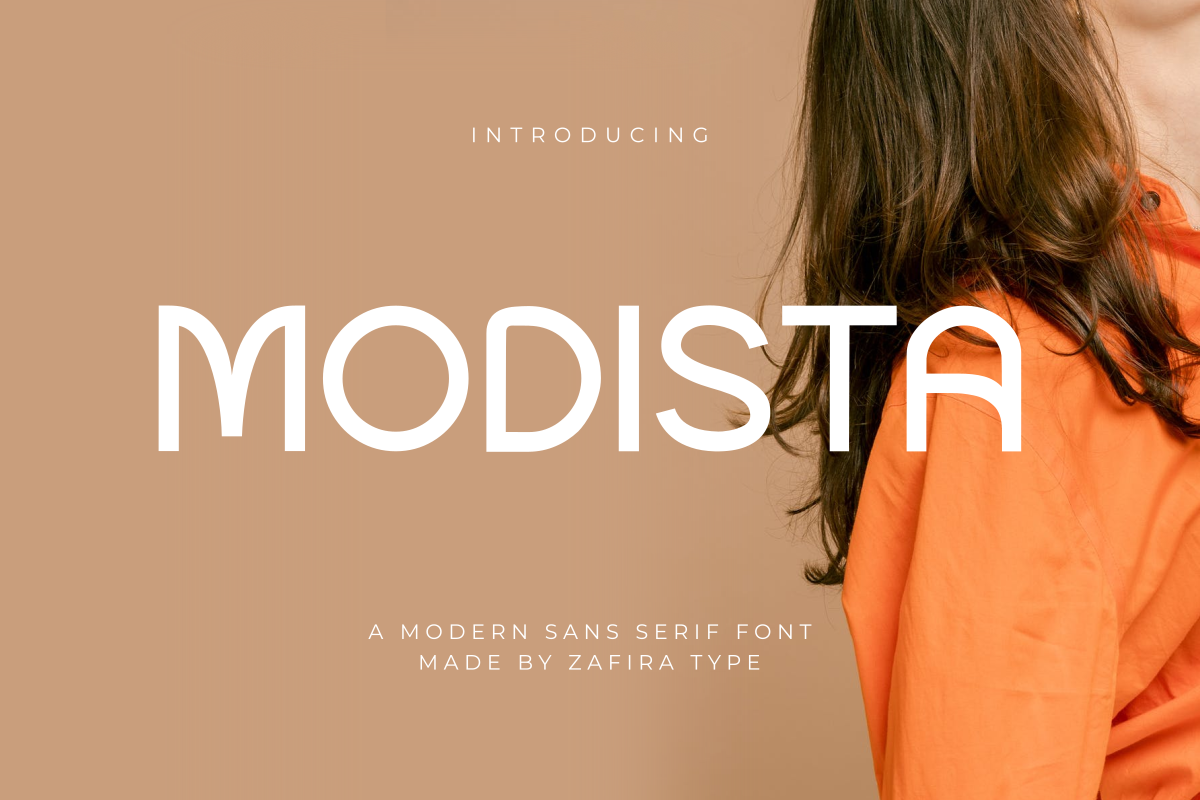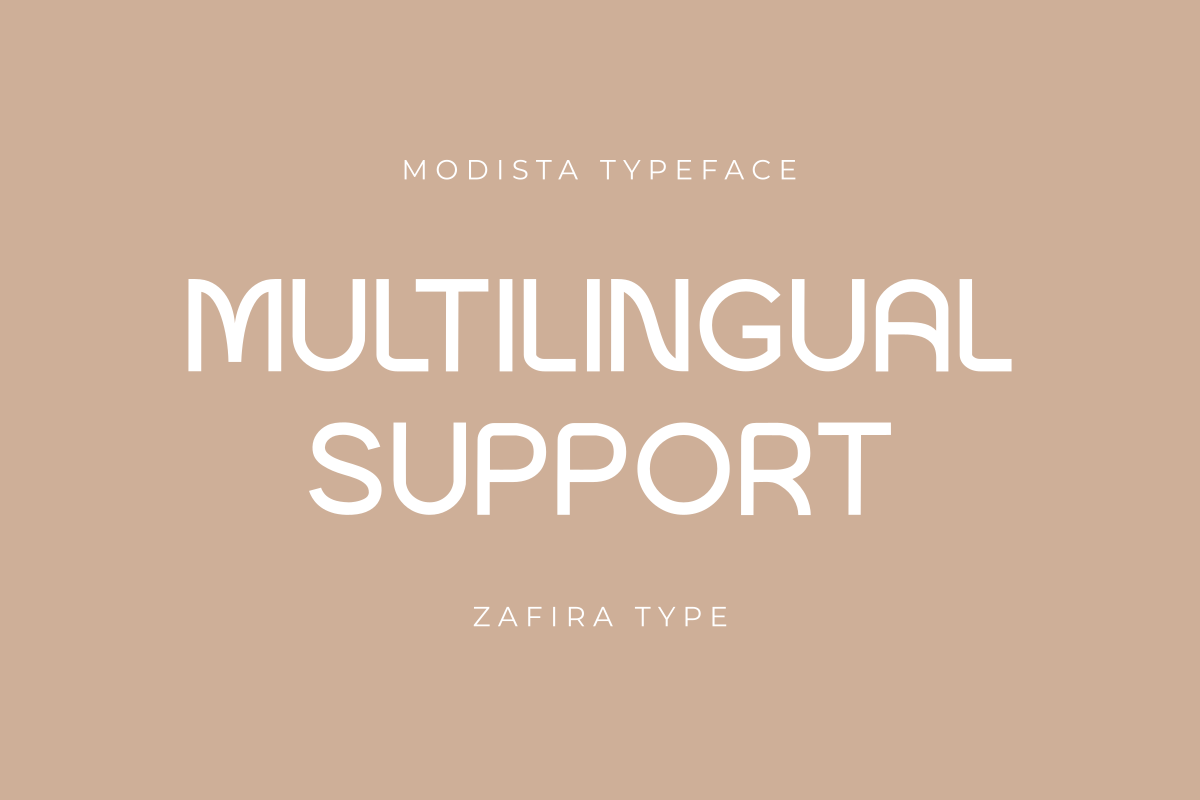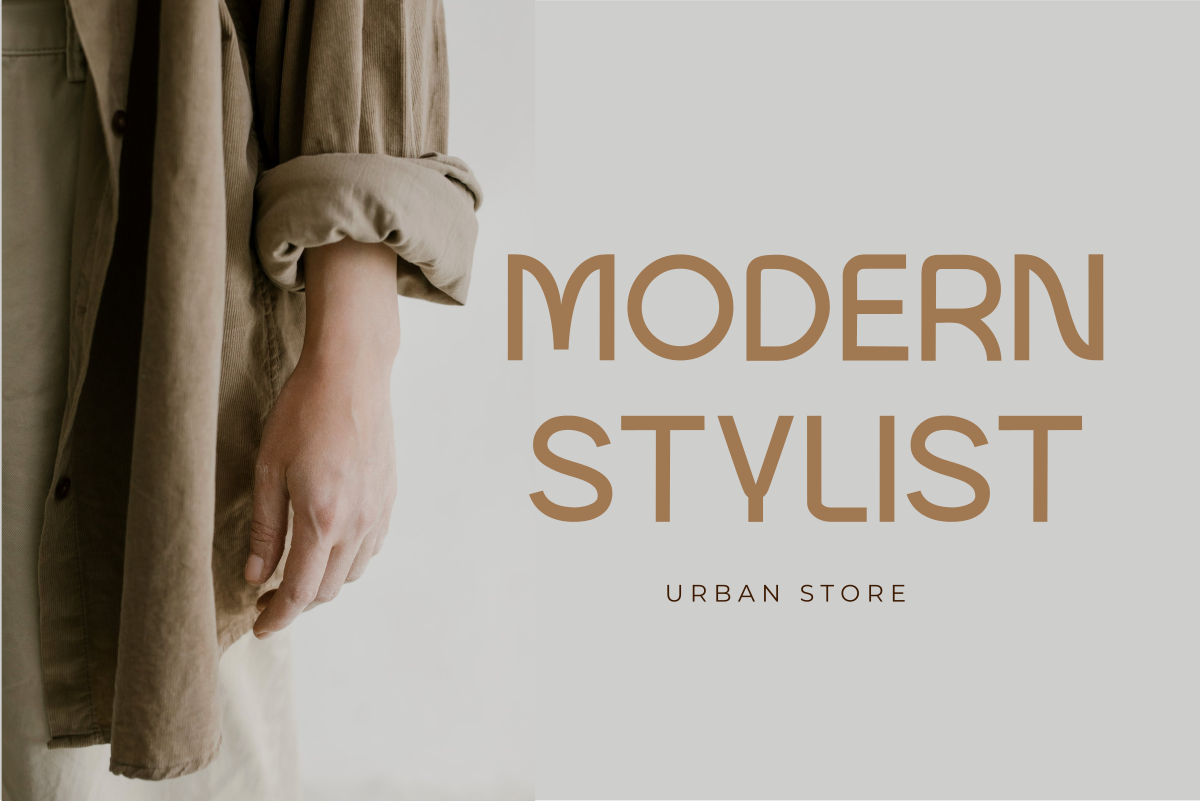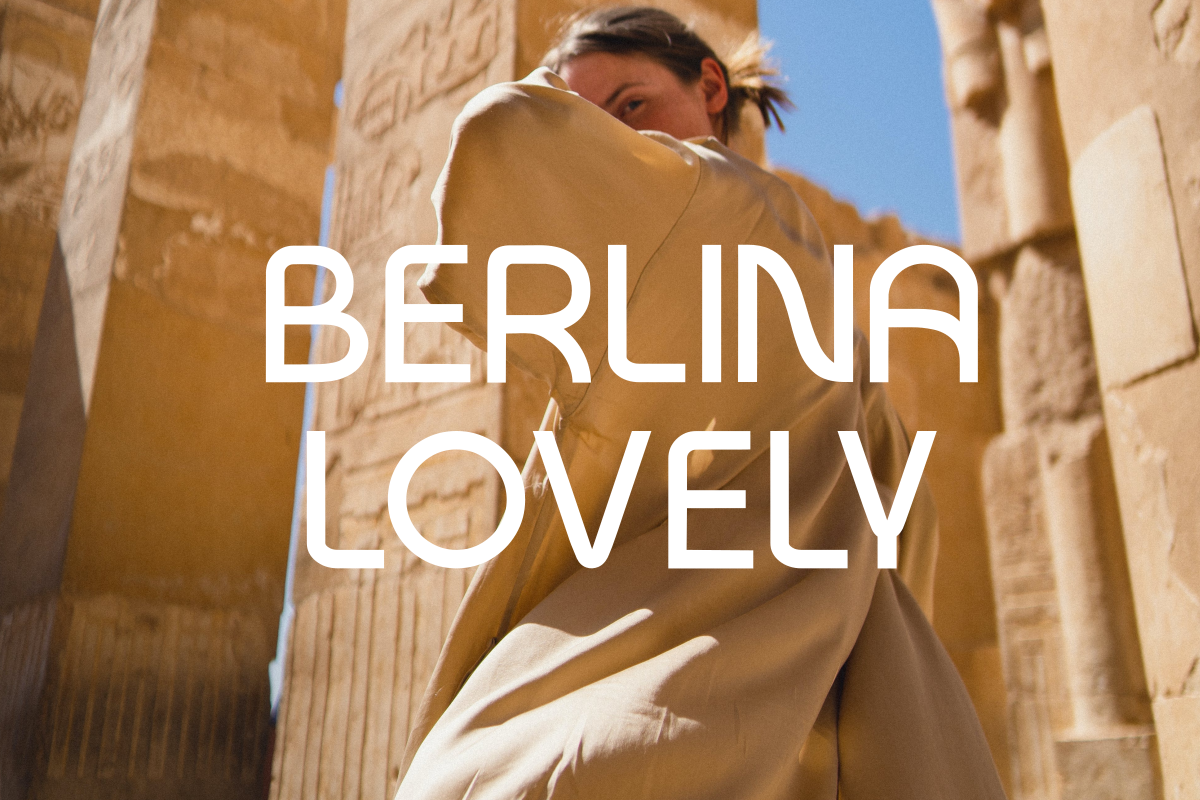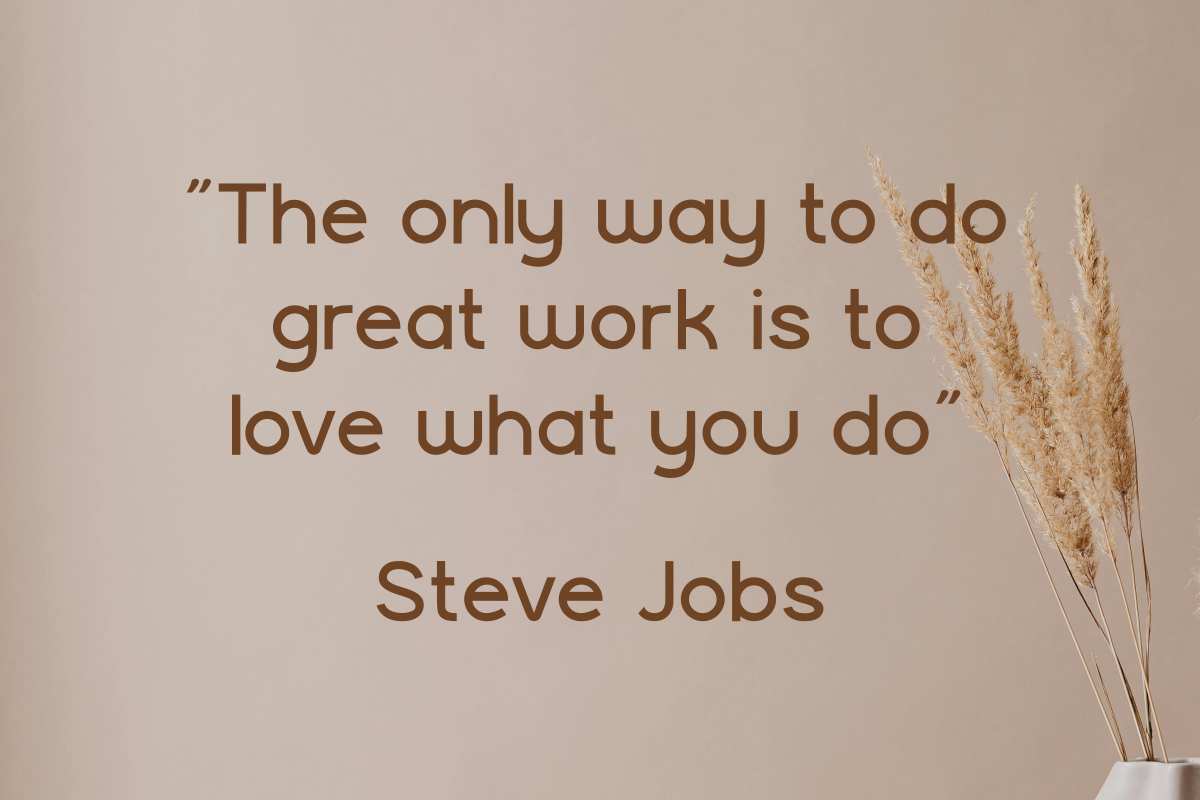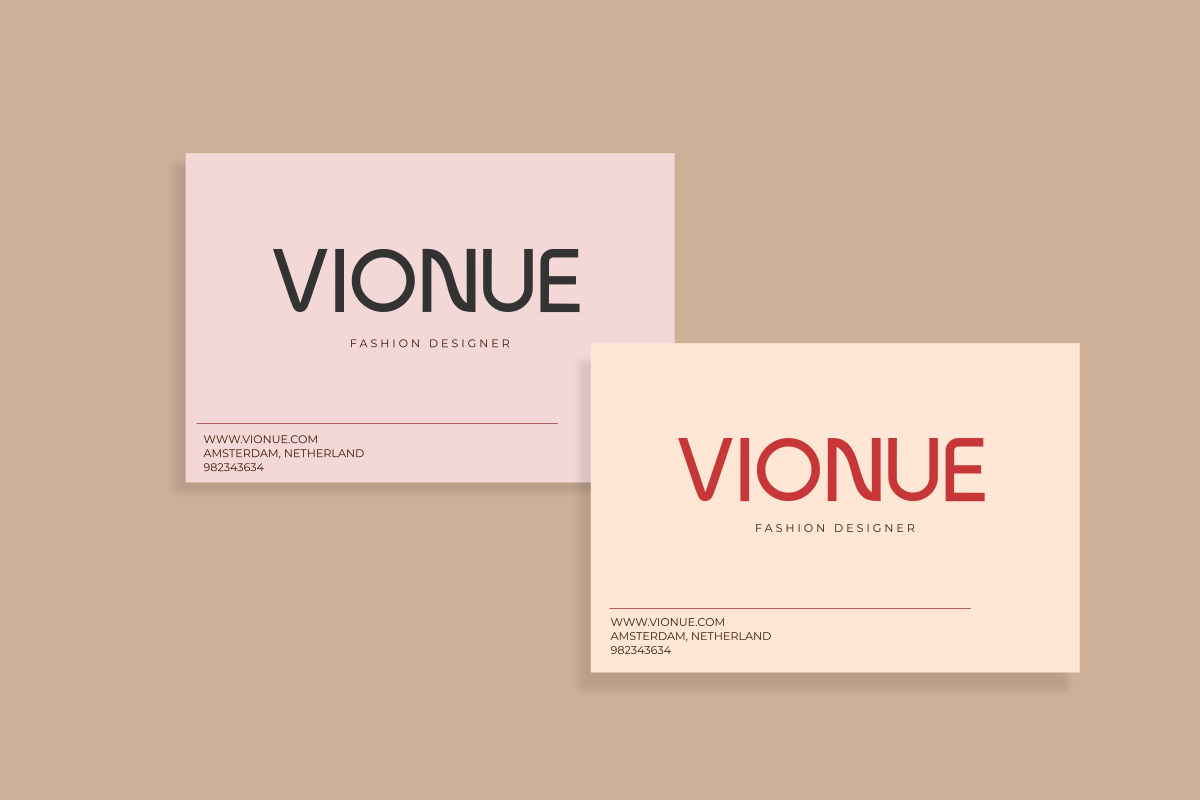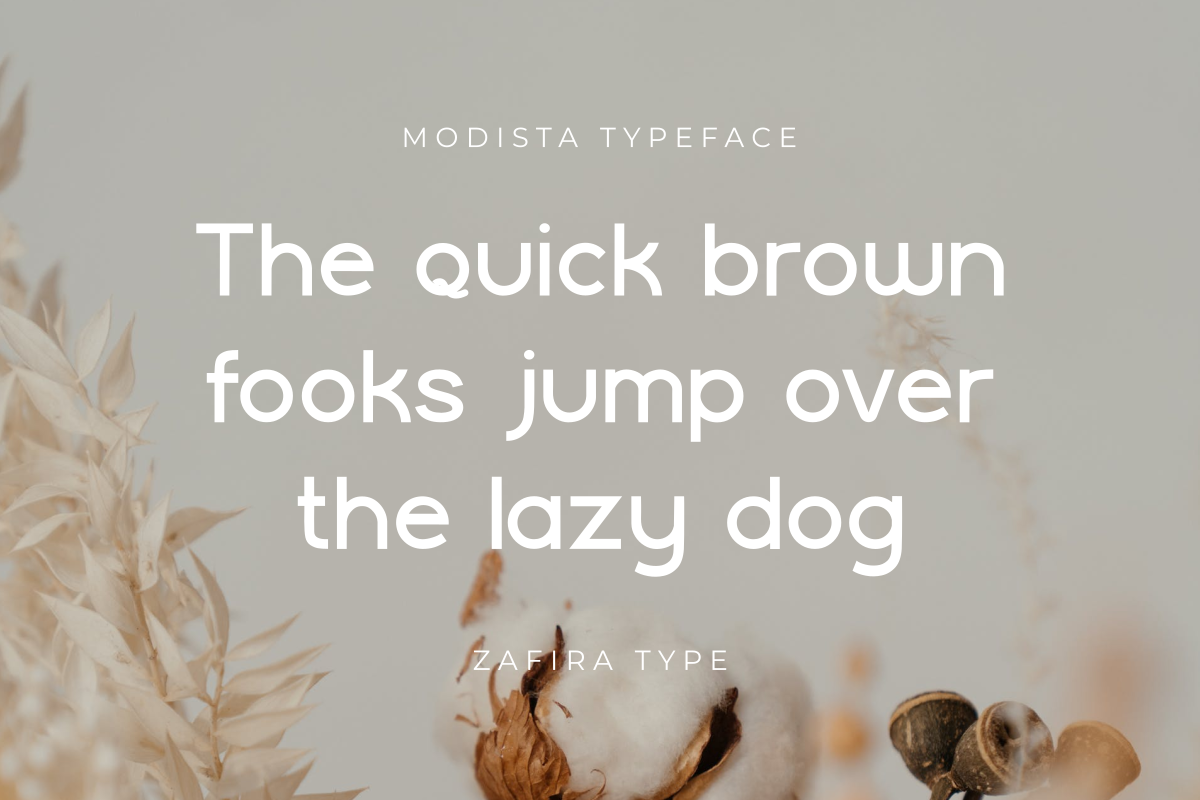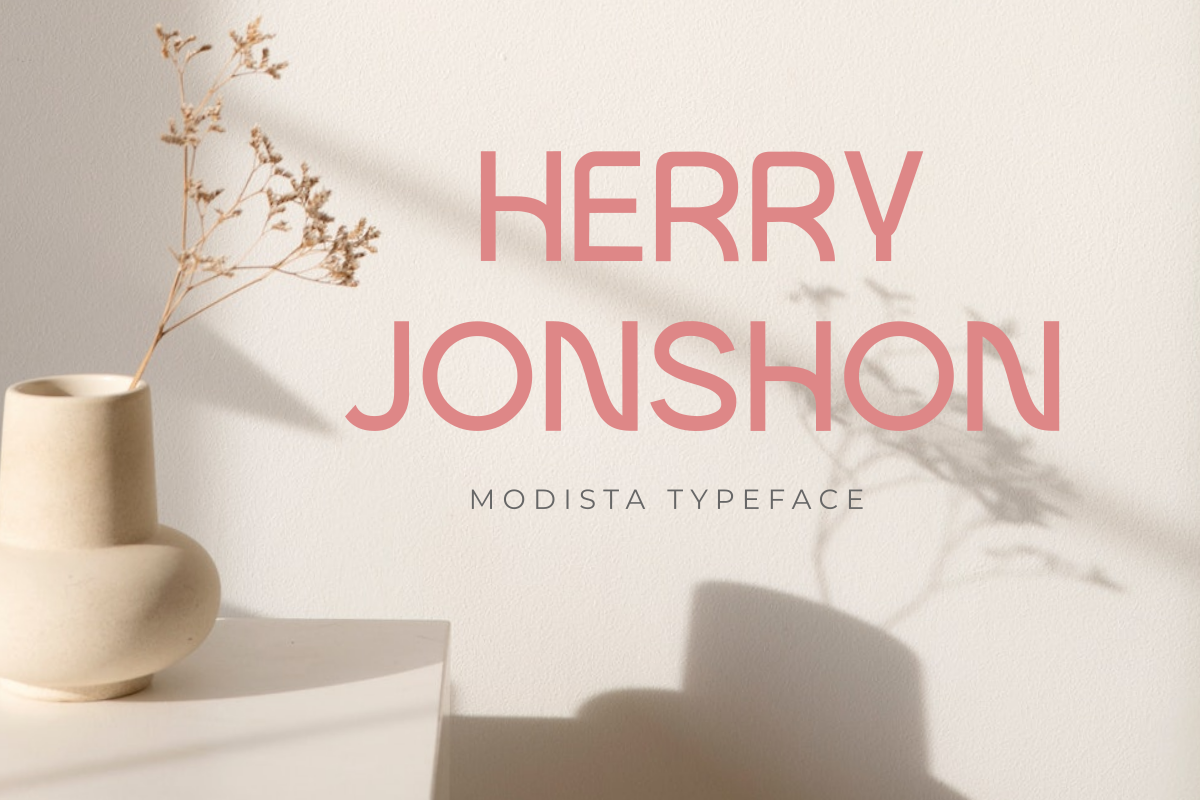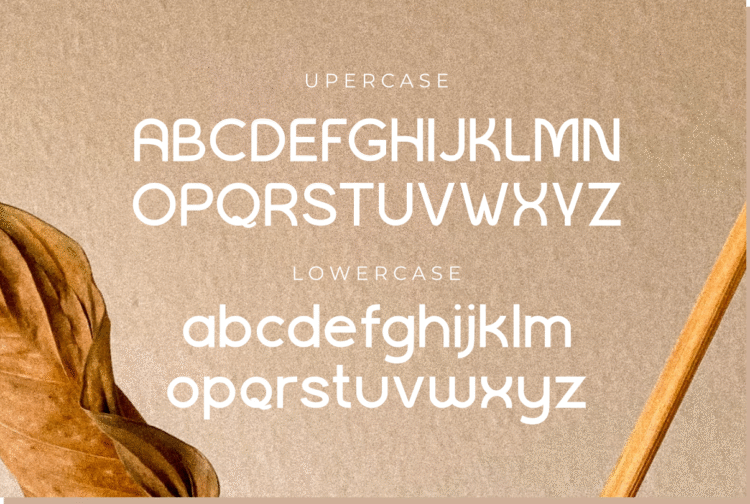
Modista
Modista is a sans serif font, It is the perfect display typeface for branding projects, logos, wedding designs, social media posts, advertising, product packaging, product designs, labels, photography, invitations, stationery, and any project, created with a high-level readability.